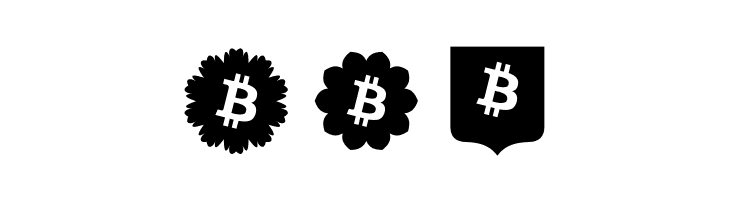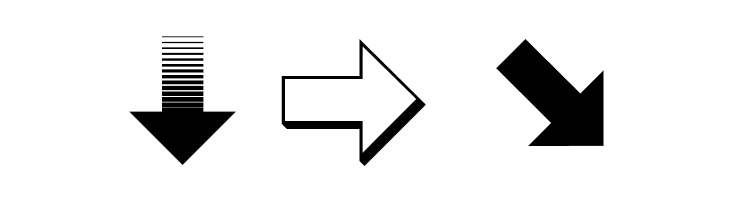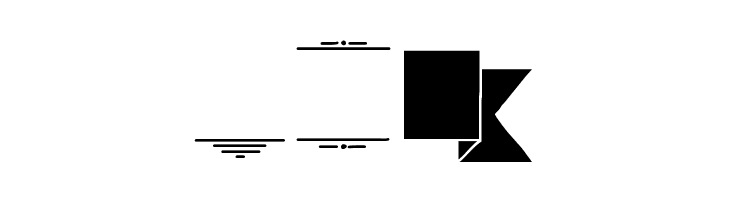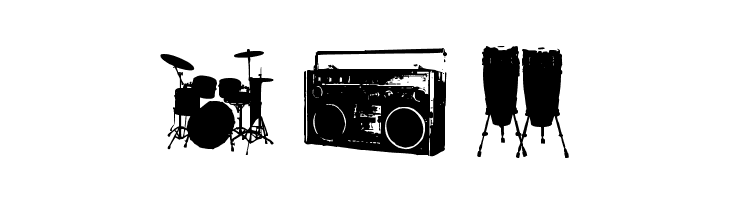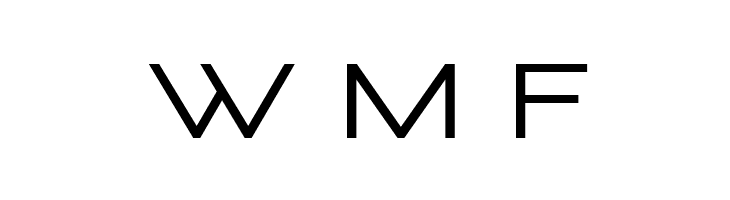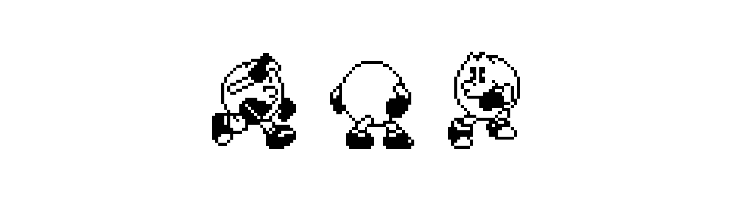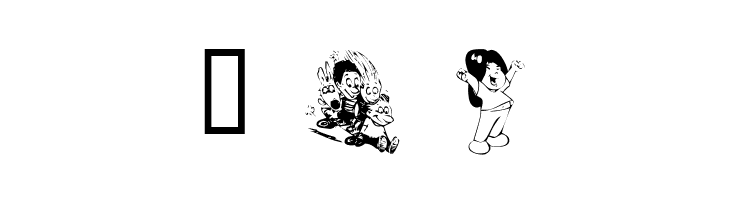
Pixelated cartoon character sprites in various poses and expressions.
A bold, icon-based font featuring various lighter illustrations.
A whimsical collection of cartoon-style illustrations of children in various playful activities.
A whimsical set of bunny illustrations in various playful poses.
A whimsical and decorative font featuring a peanut character in various poses.
A diverse collection of detailed silhouettes depicting various scenes and characters.
A decorative dingbat font showcasing various window designs.
A whimsical dingbat font featuring charming pony illustrations in various playful poses.
A decorative font featuring diverse arrow designs in various styles and directions.
A decorative set of music-themed icons representing various instruments and elements.
A decorative font with characters illustrated as various alcoholic beverages.
A diverse collection of bold, graphic symbols with cultural and geometric designs.
A dynamic italic font with a modern, energetic style and unique character design.
A bold, futuristic font with geometric and modern design elements.
A bold, geometric font with a futuristic and modern design.
A modern italic font with sleek, elongated characters and a dynamic style.
A bold, modern font with rounded edges and a strong industrial feel.
A modern, sleek font with smooth curves and a futuristic aesthetic.
A modern, italic font with a sleek, geometric design and uniform spacing.
A bold, geometric font with a square, blocky design and high contrast.
A modern, geometric font with wide, clean lines and consistent spacing.